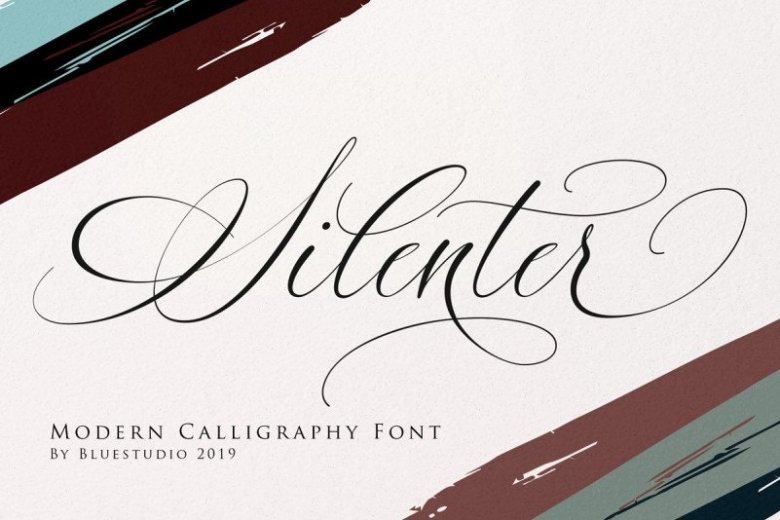
Silenter Calligraphy Font
Hello Good Fellas! This is a new fresh handmade calligraphy font. This font is ideal for branding and decorate your any project. Introducing Silenter Calligraphy Font. Silenter – a new romantic calligraphy font. This font is ideal for branding and decorate your any project, are perfect for wedding invitation or your blog. Silenter is suitable for all your design project needs such as: logo design, branding, covers, posters, magazines, wedding invitations, greeting cards, quotes and more.